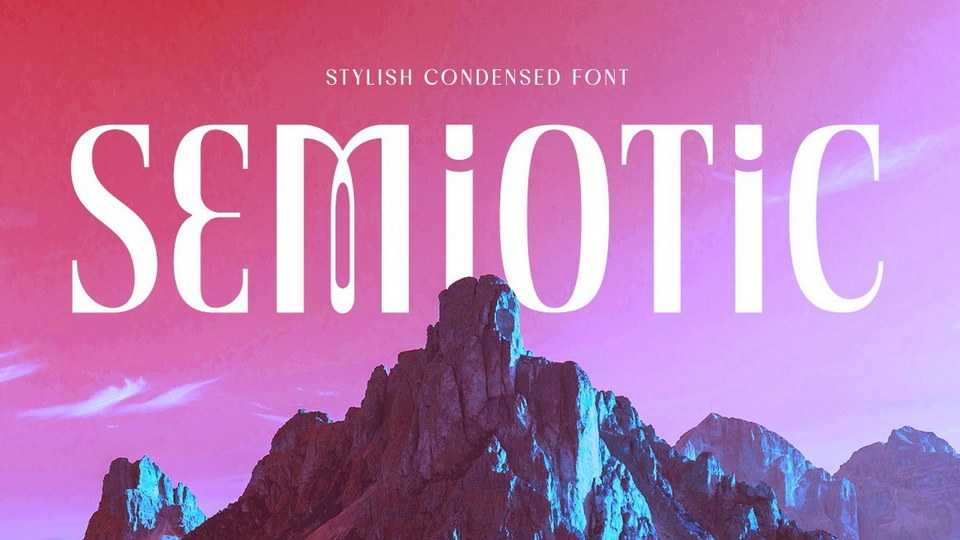
Download Semiotic font, a stylish condensed typeface. The uniqueness of the Semiotic has the same size of uppercase and lowercase, so you can play around to create a nice wording with this font.